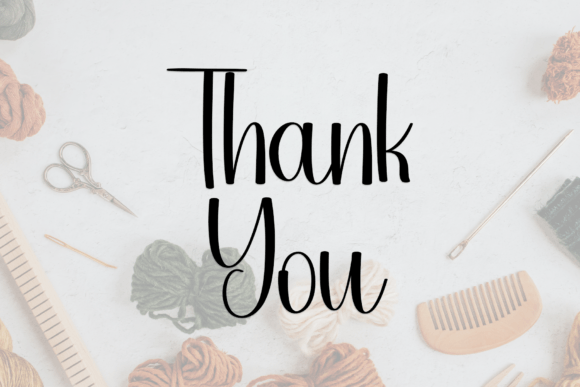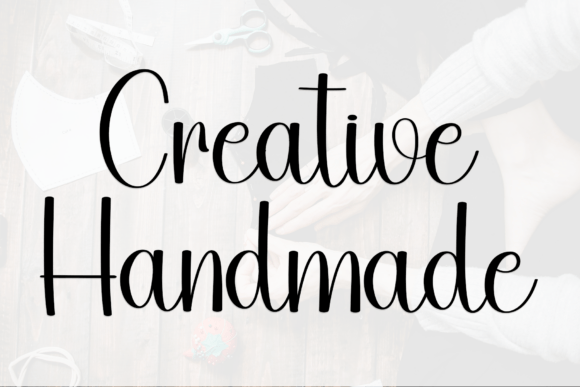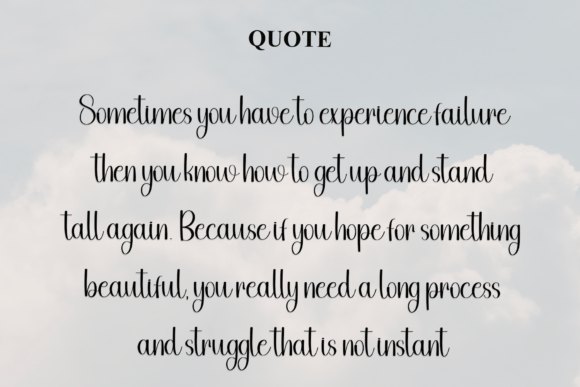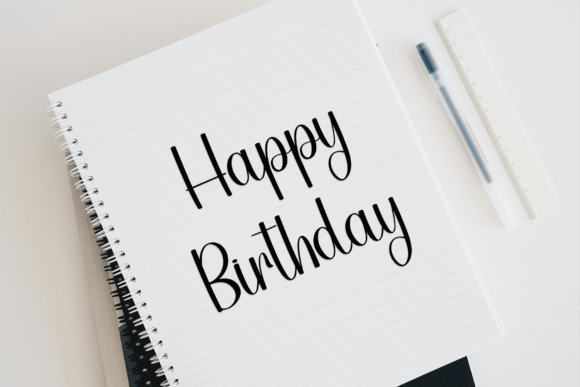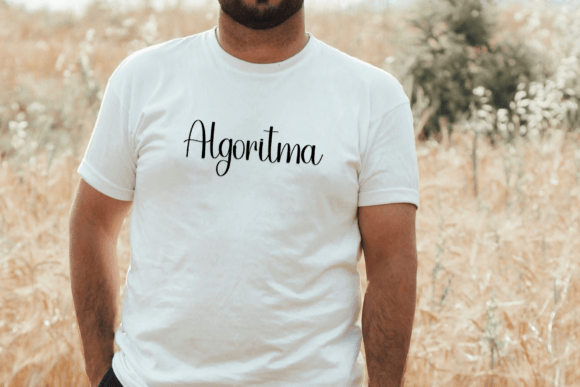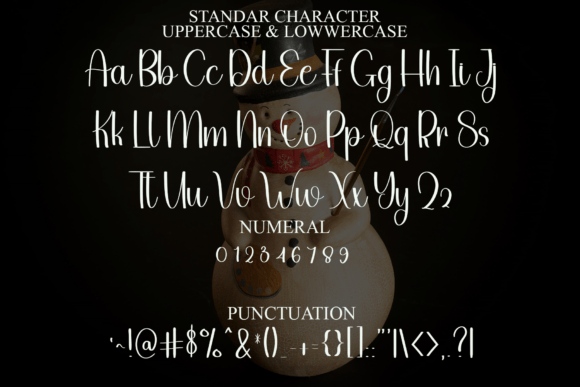
Introduction to Perfect Handmade Font
As a designer, there’s nothing quite like the thrill of discovering a new font that perfectly captures the essence of your creative vision. It’s that moment when the perfect words come together with the perfect visual style, making your project truly shine. For many designers, finding that elusive font can be a game-changer – and that’s exactly what we’re here to explore today with the Perfect Handmade Font.
This stunning font offers a high-quality, unique touch that’s sure to elevate your design projects. With its soft, transparent background and versatile strokes, it’s the perfect design resource for any creative endeavor. Whether you’re working on a free download project or crafting a custom design for a client, the Perfect Handmade Font is an ideal choice that’s sure to impress.
Key Features of Perfect Handmade Font
- High-quality, handcrafted design for unique creative projects
- Includes 200+ glyphs, covering a wide range of languages, including Latin, Cyrillic, and Greek
- Features a transparent background, allowing for easy layering and customization in design projects
- Designed at 72 dpi, suitable for print and digital applications, including signage, branding, and web design
- Perfect for adding a touch of handmade charm to any creative project, from posters to packaging design
Honest Review: Perfect Handmade Font
As a designer, I’m always on the lookout for high-quality design resources to elevate my creative projects. Recently, I stumbled upon the Perfect Handmade Font, and I must say, it’s a great addition to my design toolkit.
- The font is extremely versatile and can be used for a variety of design projects, from branding to digital products.
- The transparent background feature allows for seamless integration with other design elements.
However, I did encounter a few limitations ⚠️:
- The number of font styles and weights could be more extensive for some users.
Overall, the Perfect Handmade Font is a great design resource for designers looking to add a personal touch to their creative projects. While it may have some limitations, the quality and flexibility of the font make it a worthwhile addition to any design library.
Tips for Getting the Most Out of Perfect Handmade Font
Use the Perfect Handmade Font in conjunction with other design elements, such as images and graphics, to create a unique and eye-catching design. Experiment with different font sizes and colors to achieve the desired effect. The high quality of the font ensures that it will look great in any design project.
The Perfect Handmade Font is ideal for use in creative projects, such as posters, flyers, and social media graphics. It is also suitable for use in business presentations and documents, where a unique and professional design is required. The transparent background of the font makes it easy to integrate with other design elements and create a cohesive look.